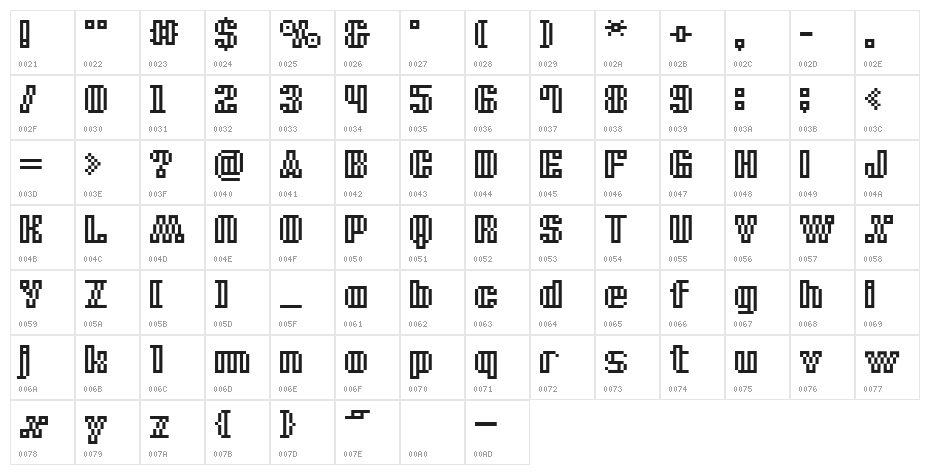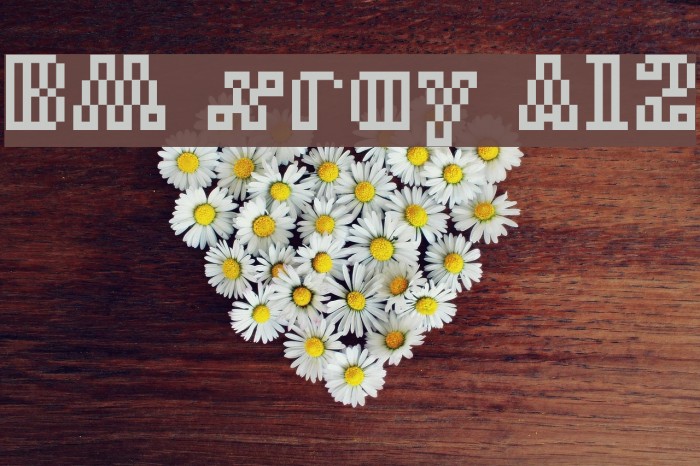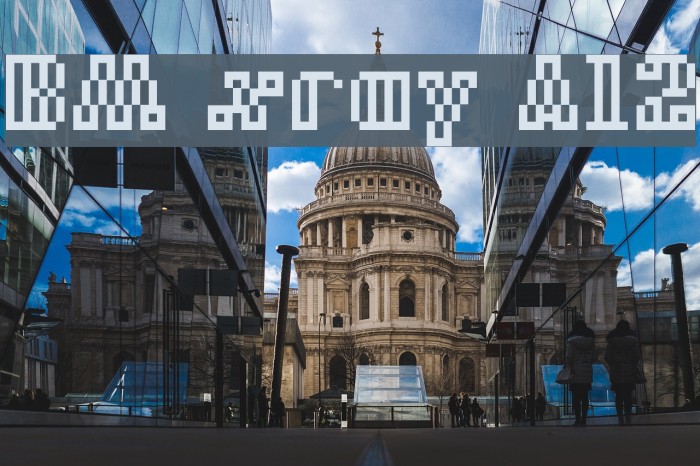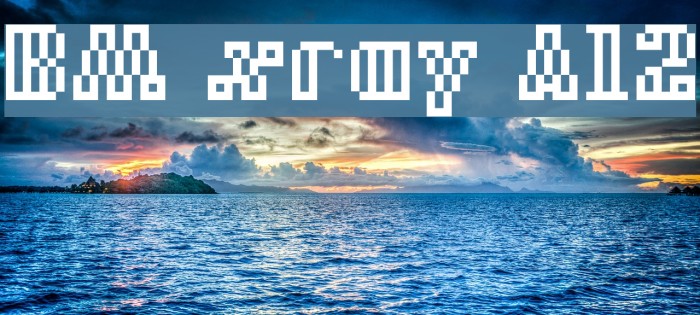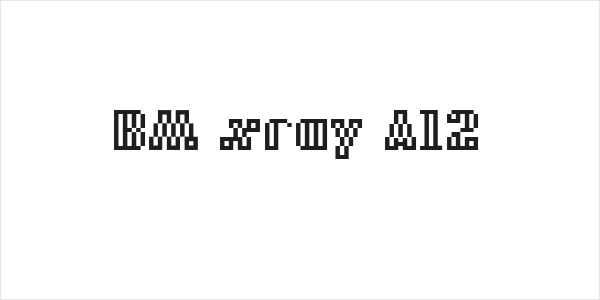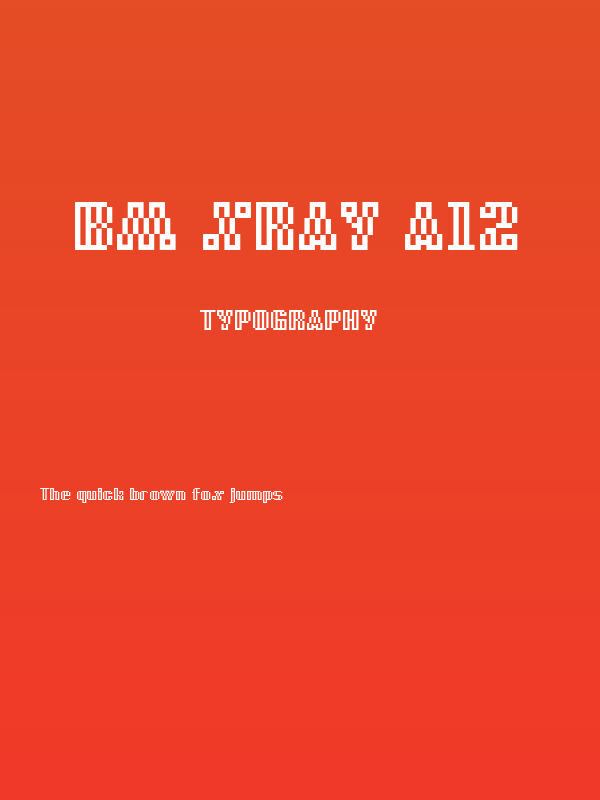
BM xray A12 Font
BM xray A12 Description
This font features a distinct pixelated style, reminiscent of early digital displays and retro video games. Each character is constructed with a blocky, grid-like appearance, giving it a unique, nostalgic feel. The uppercase and lowercase letters maintain a consistent height, while the numerals and special characters follow the same pixelated design. The font's geometric structure and uniform stroke width contribute to its bold and striking presence, making it ideal for projects that require a vintage or tech-inspired aesthetic.
| Overall Style | Retro, Tech-inspired |
| Proposed Projects | Ideal for video game graphics, tech-themed posters, retro-style branding, and digital art projects. |